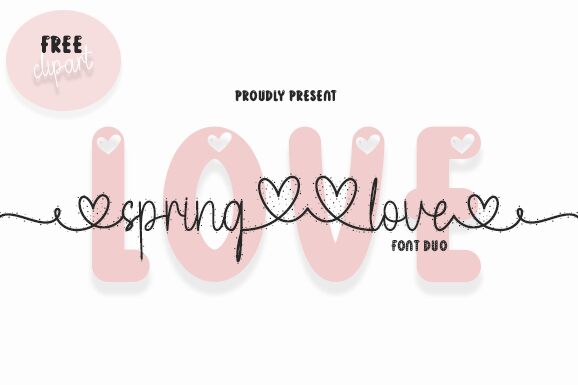
Make your Valentine's Day projects stand out with Spring Love Display by Fillo Graphic. This semi-bold, semi-condensed font is perfect for all your holiday designs, from love letters to greeting cards and everything in between. Its playful yet elegant style will add a touch of romance to any project. Use it for wedding invitations, posters, or even social media posts – the possibilities are endless. Spring Love Display is the ideal choice for anyone looking to add a little love to their typography game. So go ahead, spread some love with this beautiful font!
Spring Love Display